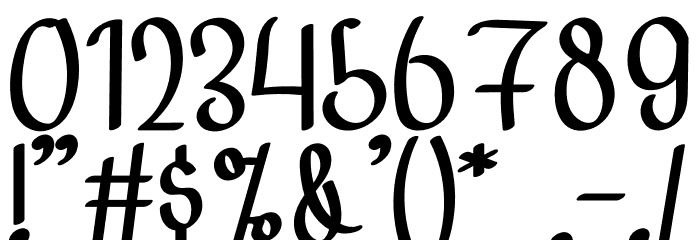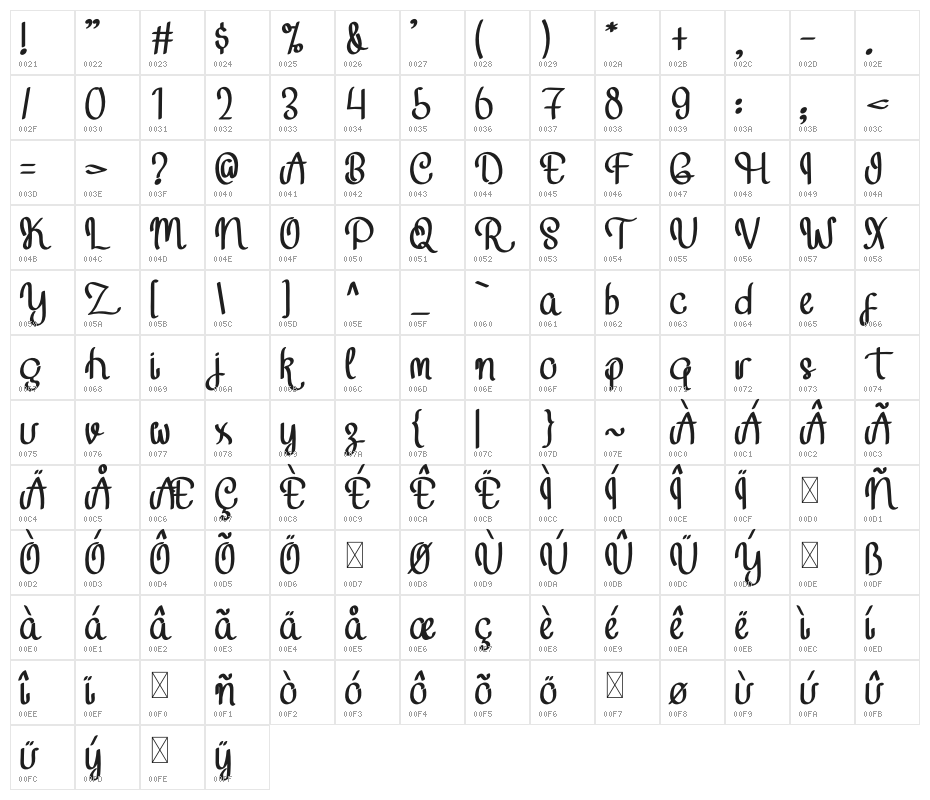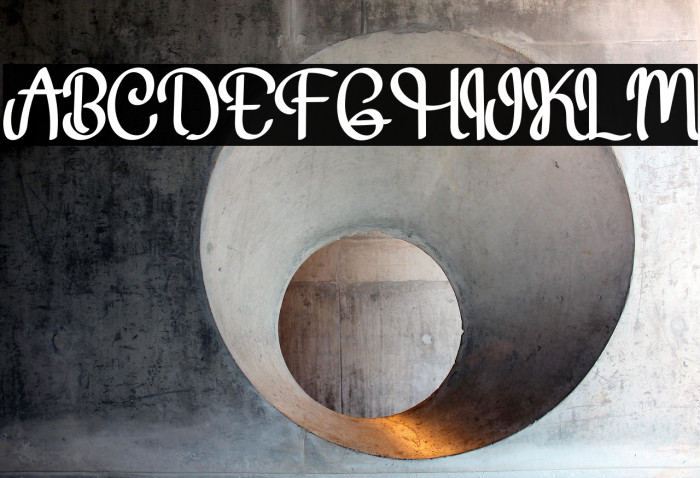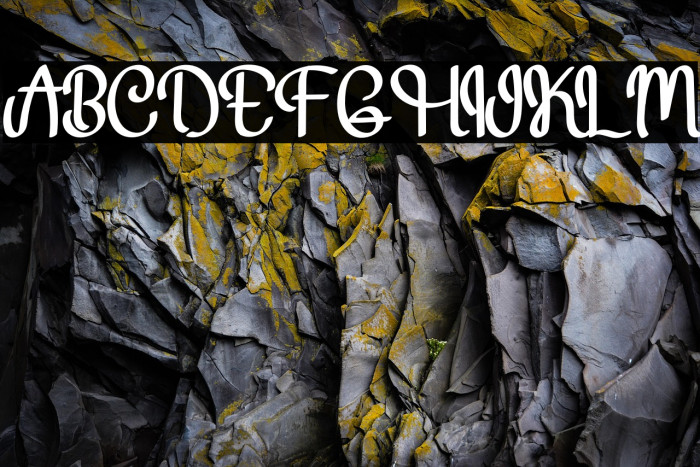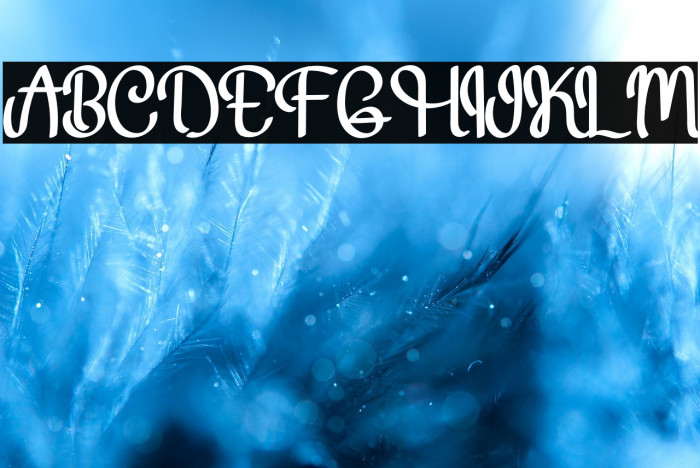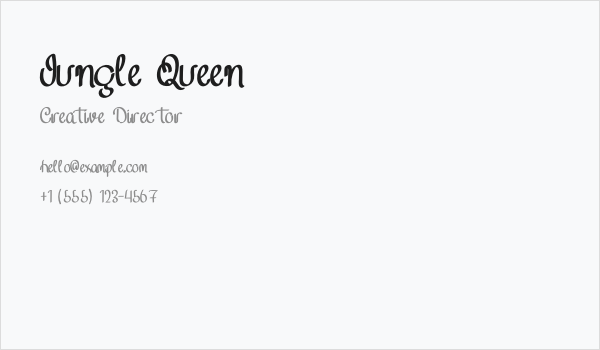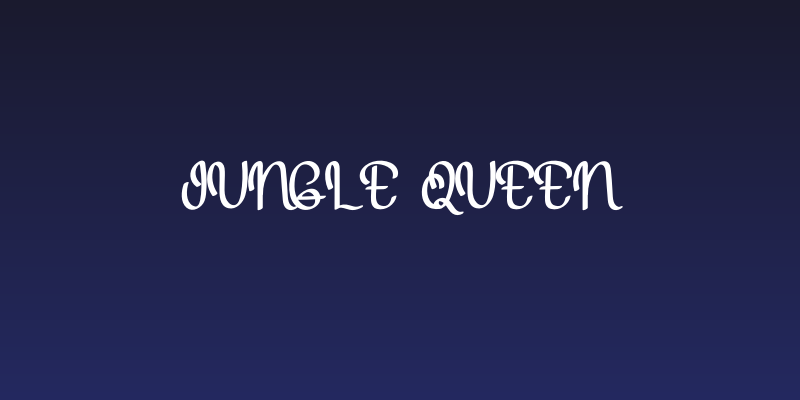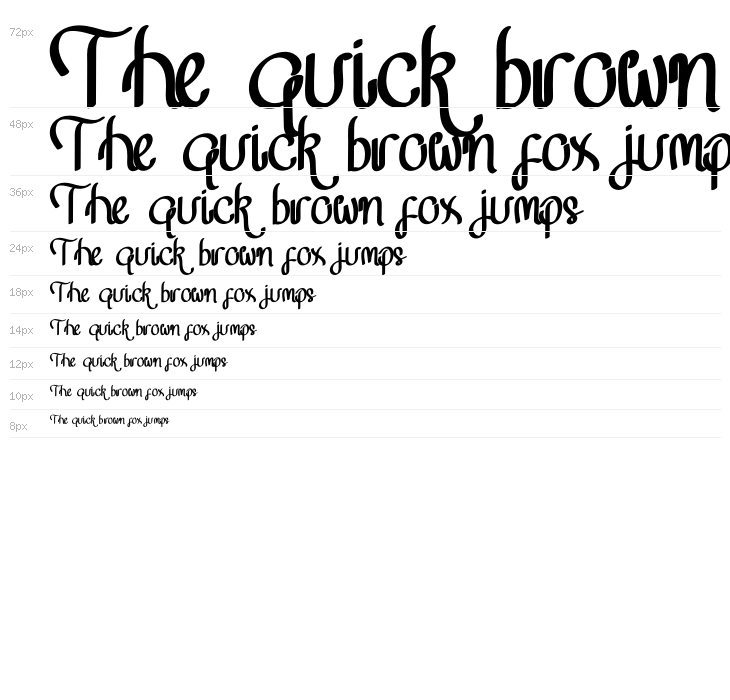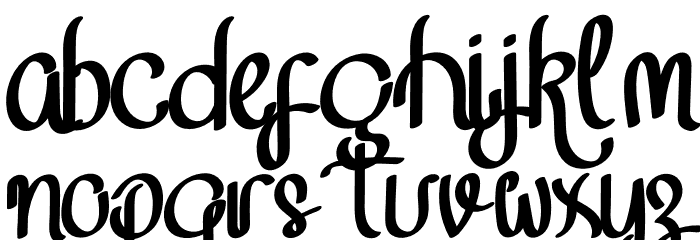
Jungle Queen Font
Jungle Queen Description
This font features a playful and bold script style with a hand-drawn appearance. The letters are characterized by their thick, flowing strokes and a whimsical, artistic flair. Uppercase and lowercase letters maintain a consistent style, with some letters featuring unique loops and curls that add to the font's charm. The numerals and special characters follow the same playful design, making them cohesive with the alphabet. This font's lively and dynamic nature makes it suitable for creative and informal projects.
| Proposed Projects | Ideal for greeting cards, invitations, posters, and branding that requires a fun and artistic touch. |